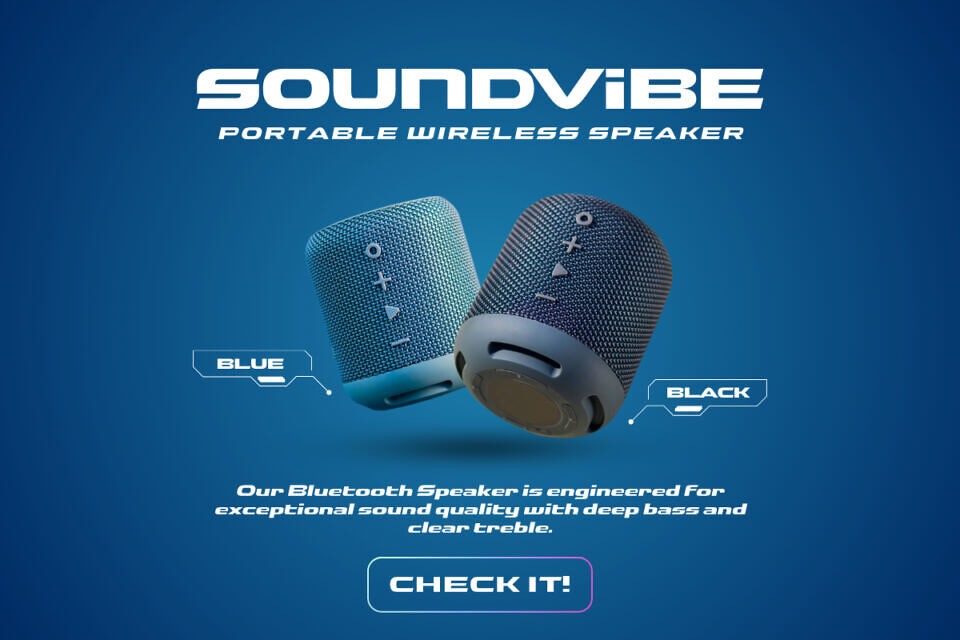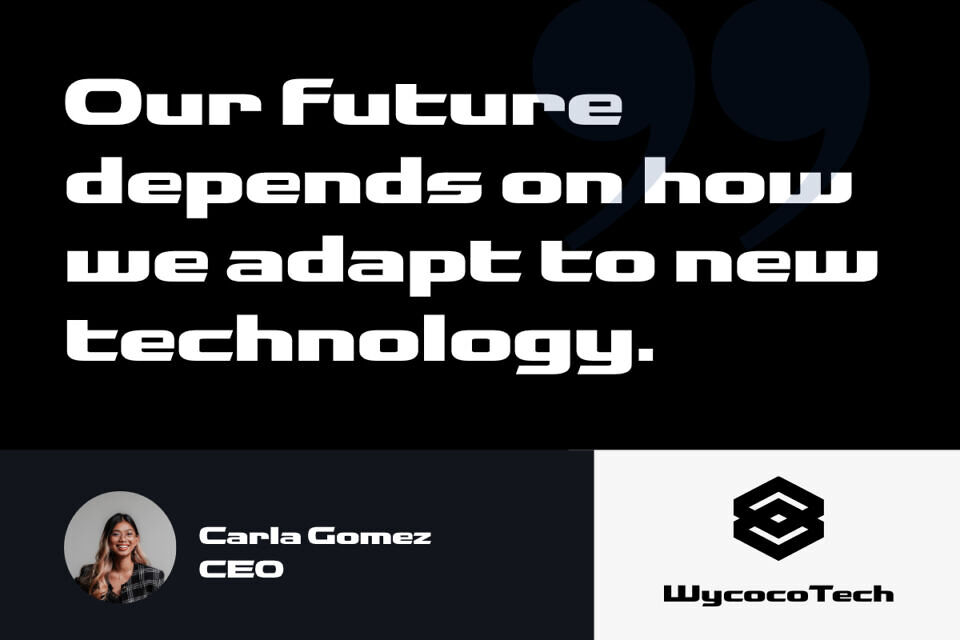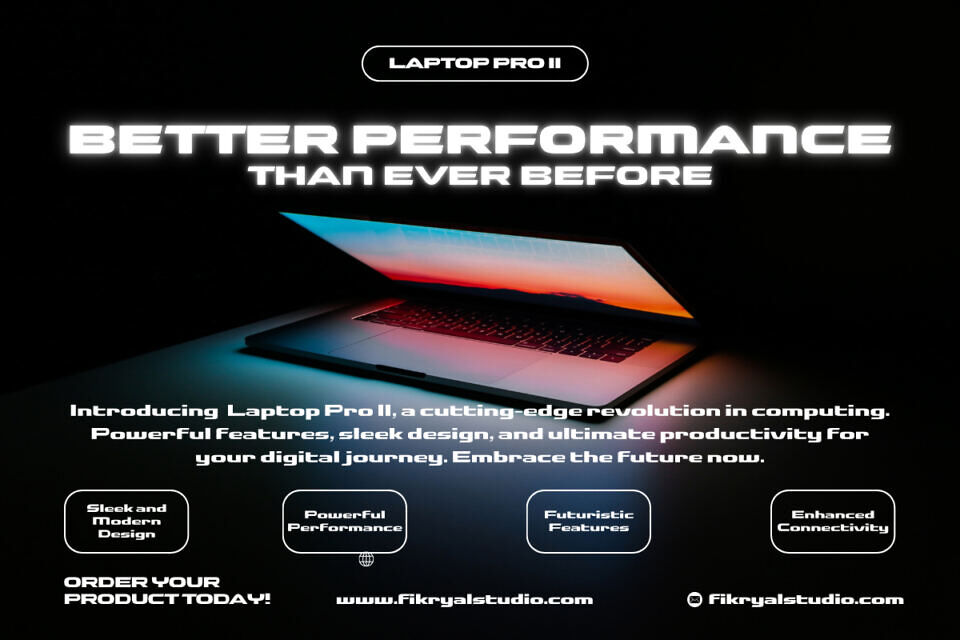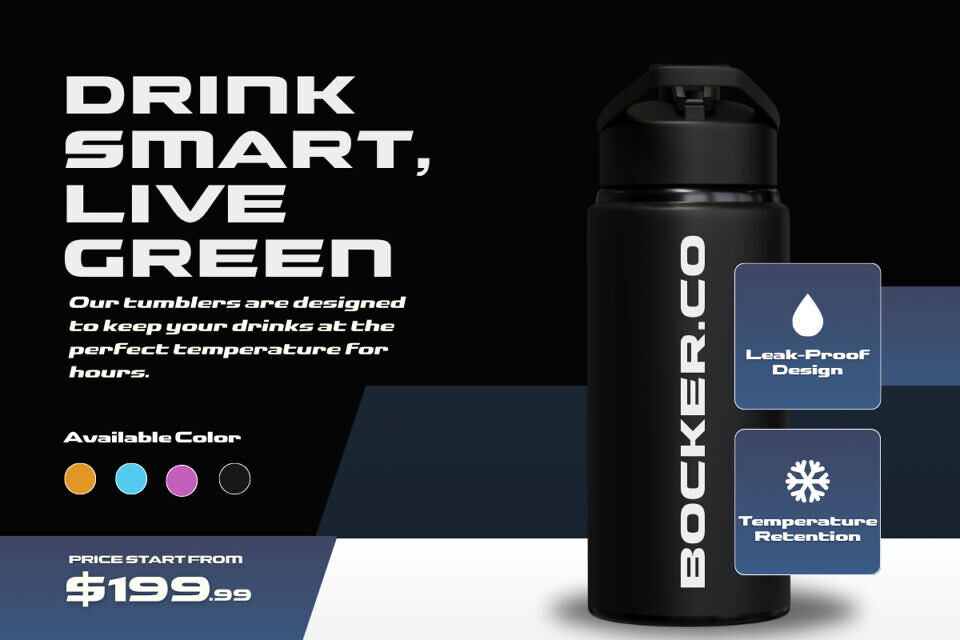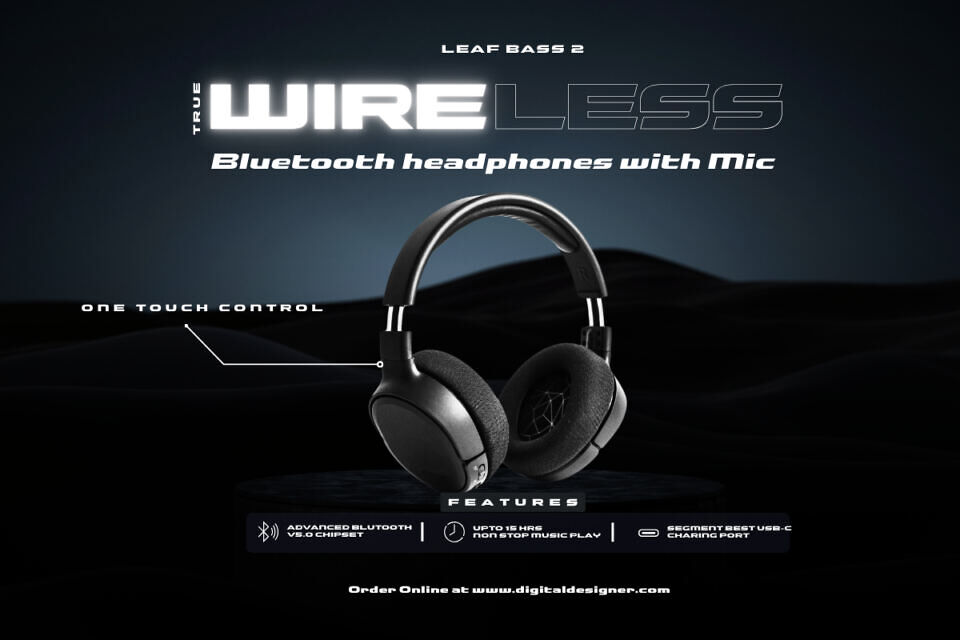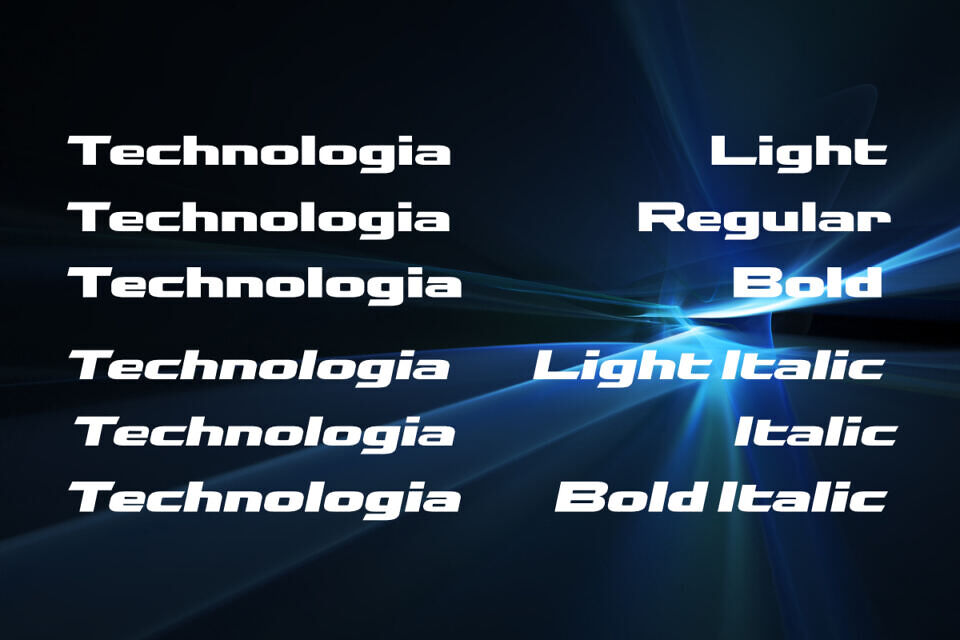
Tachnologest Font
Tachnologest is a futuristic sans serif display typeface designed to deliver a sleek, precise, and cutting-edge look to any project. With its clean lines, geometric shapes, and modern minimalistic style, this font is perfect for brands and creatives who want to showcase a high-tech, professional image.
This font family comes with 6 versatile styles: Light, Light Italic, Regular, Italic, Bold, Bold Italic.
Each style is crafted to work harmoniously together, giving you the flexibility to mix and match for both print and digital projects. Tachnologest is ideal for technology branding, startup logos, sci-fi posters, app interfaces, corporate presentations, and magazine headlines.